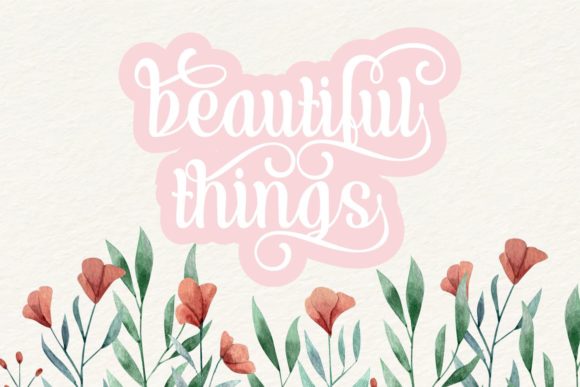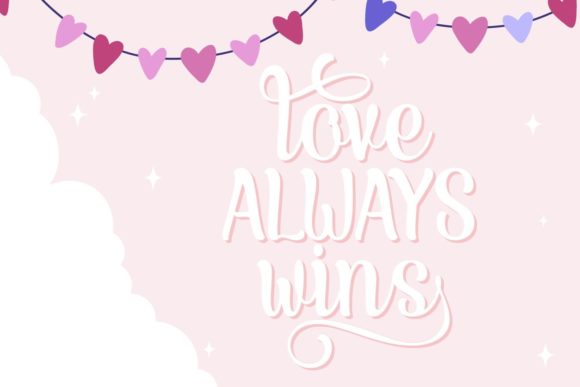
Marshela Belovia Font
db-ku.com - Script & Handwritten -- Marshela Belovia is an exquisite handwritten font, masterfully designed to become a true favorite. It maintains its classy calligraphic influences while feeling contemporary and fresh. This font is PUA encoded which means you can access all of the glyphs and swashes with ease!